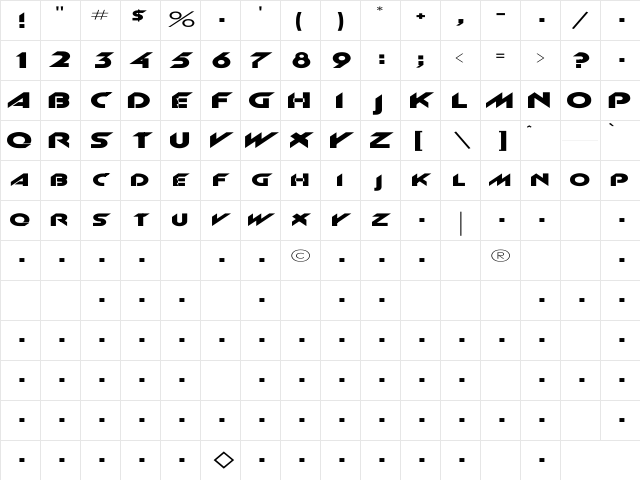
Rsnewgrrtt Ex Regular Free Font
Rsnewgrrtt Ex Regular
Complete Rsnewgrrtt Ex Regular glyph index. Displaying only characters natively supported by Rsnewgrrtt Ex Regular font.
Design Context for Rsnewgrrtt Ex
Rsnewgrrtt Ex is a composed and adaptable typeface that performs quietly and consistently across a wide range of design contexts.